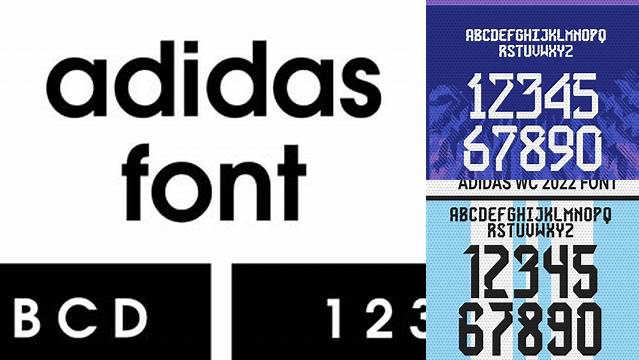
Adidas Font: Free Alternatives And How To Use Them
When it comes to sports and athletic wear, Adidas is a brand that stands out. Their logo and brand design are easily recognizable worldwide. A crucial element of their branding is the distinctive Adidas font. For designers, enthusiasts, and anyone looking to capture the Adidas aesthetic, finding the right font is essential. In this comprehensive guide, we’ll explore the various aspects of the Adidas font, where you can find it, and how you can use it for your projects.
Understanding the Adidas Font
The Significance of Typography in Branding
Typography plays a massive role in branding. The right font can evoke emotions, convey a brand's personality, and create a lasting impression. For Adidas, a brand synonymous with sport, performance, and style, the font used in their logos, marketing materials, and product designs contributes significantly to their brand identity. The Adidas font is not just a typeface; it's a visual representation of the brand’s values and heritage. It embodies the spirit of athleticism, innovation, and a forward-thinking approach, all while maintaining a clean and modern look.
Identifying the Authentic Adidas Font
So, what exactly is the Adidas font? Officially, Adidas uses custom-made fonts that are proprietary and not publicly available for free download. However, several fonts closely resemble the Adidas typeface and can be used as alternatives. The most recognizable Adidas font is the one used in their logo, which features a bold, sans-serif typeface. This font exudes strength, confidence, and clarity. When looking for a similar font, you should focus on sans-serif fonts with a strong, clean appearance. Fonts like DIN Next, Bebas Neue, and Raleway are often considered close matches. These fonts share the geometric precision and streamlined aesthetic that define the Adidas font, making them excellent choices for projects aiming to emulate the Adidas style. Understanding the characteristics of the authentic Adidas font helps you make informed decisions when selecting a substitute.
Why Recreating the Adidas Font Matters
Recreating the Adidas font matters for various reasons, especially for designers and marketers. Maintaining brand consistency is critical for any organization. Using a font that closely resembles the Adidas typeface helps ensure that your designs align with the brand's established image. This is particularly important when creating fan-made content, marketing materials, or even personal projects inspired by Adidas. Capturing the essence of the Adidas brand in your typography can significantly enhance the visual appeal and impact of your work. Whether you are designing a sports-themed poster, a custom t-shirt, or a social media campaign, using a similar font can evoke the same emotions and associations as the original Adidas branding. This level of attention to detail can make your work stand out and resonate with your target audience.
Finding Free Alternatives to the Adidas Font
Top Font Alternatives to Consider
While the official Adidas font isn't available for free download, there are several excellent alternatives that capture the essence of the Adidas brand. Here are some top contenders:
- Bebas Neue: This is a popular sans-serif font known for its clean lines and tall, narrow characters. It's a great choice for headlines and titles, offering a modern and sporty feel.
- DIN Next: A widely used font in corporate branding, DIN Next offers a geometric and functional design. Its clarity and legibility make it suitable for both print and digital applications.
- Raleway: A versatile sans-serif font with a slightly softer appearance than DIN Next, Raleway provides a more approachable feel while still maintaining a contemporary edge.
- Montserrat: Another excellent sans-serif option, Montserrat, is known for its geometric design and readability. It works well in various design contexts, from logos to body text.
- Lato: Lato is a modern, open-source font that offers a balance of warmth and clarity. Its rounded letterforms make it a friendly alternative, suitable for a wide range of projects.
Selecting the right font involves more than just finding a close match to the Adidas typeface. Here are some tips to guide your decision:
- Consider the Project: Think about the specific purpose of your project. Is it for a logo, a poster, or a website? The font should align with the overall design and message.
- Test Readability: Ensure the font is legible, especially for body text. A stylish font is useless if it's difficult to read.
- Check Licensing: Always verify the font license to ensure you can use it for your intended purpose, whether it's personal or commercial.
- Experiment with Weights and Styles: Many fonts come with different weights (e.g., bold, light) and styles (e.g., italic, condensed). Experiment to find the best combination for your design.
How to Use the Adidas Font in Your Projects
Design Principles to Follow
While the official Adidas font remains proprietary, numerous excellent alternatives capture the essence of the brand's aesthetic. By understanding the characteristics of the Adidas font and exploring options like Bebas Neue, DIN Next, and Raleway, you can effectively incorporate the Adidas style into your projects. Remember to consider design principles, explore practical examples, and avoid common mistakes to create visually compelling and professional designs. Whether you're working on sports team branding, event posters, or social media graphics, the right font can help you achieve the desired impact and connect with your target audience. So go ahead, experiment with these alternatives, and bring a touch of the Adidas spirit to your creative endeavors.